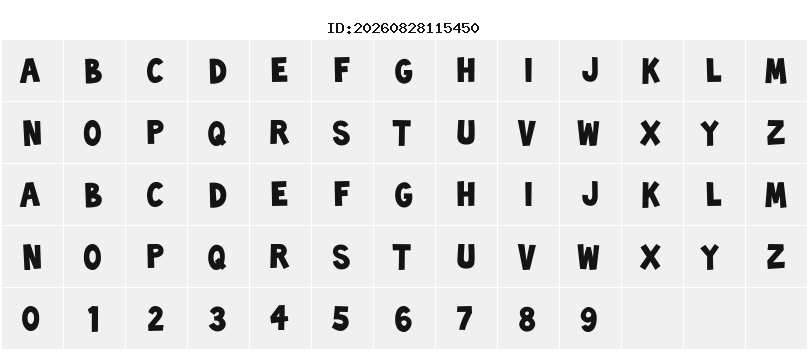
• Font Name: Toonish
• Designer: Tom Burns
Toonish.ttf is a modern, elegant sans-serif font designed for ultimate readability and visual harmony. Perfect for branding, headlines, web design, and print materials.